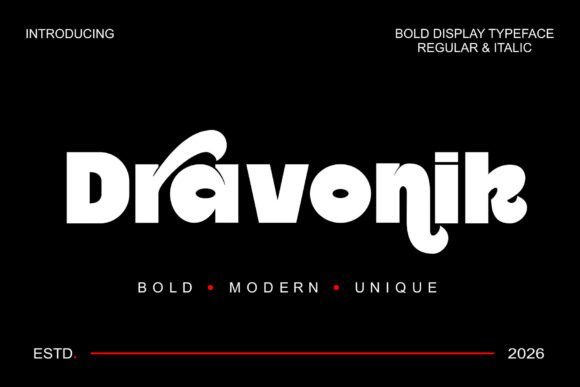
Unlocking Creativity with the Dravonix Font
Have you ever stared at a blank canvas, waiting for inspiration to strike? You’re not alone. As creatives, we’ve all been there – searching for that perfect spark to bring our ideas to life. For designers, typography is often the key to unlocking a project’s true potential. That’s why we’re excited to introduce the Dravonix Font, a modern, bold, and elegant typeface designed to elevate your designs and leave a lasting impression.
With the Dravonix Font, you’ll have the perfect tool to add instant impact to your logos, website headers, posters, and packaging designs. Its dynamic structure and powerful personality make it a versatile choice for any creative project. Whether you’re working on a fashion branding campaign or a cutting-edge tech visual, the Dravonix Font is sure to captivate your audience and set you apart from the crowd.
Dravonix Font Key Features
- Font Family: Dravonix Font comes in two font families, Dravonix Regular and Dravonix Bold.
- Unique Characteristics: Dravonix Font features a unique blend of modern and vintage elements, with distinctive letterforms and a touch of elegance, making it perfect for creative and professional projects.
Dravonix Font Review
Overall, I think the Dravonix font is a great addition to any designer’s toolkit. ✨ The unique blend of modern and futuristic elements gives it a really striking look that’s perfect for anything from tech startups to sci-fi novels. The font is highly legible, even at small sizes, and the subtle curves and angles add a touch of sophistication.
One of the things I love about Dravonix is its versatility. ✨ It comes in a range of weights and styles, from light and elegant to bold and dramatic. This makes it easy to use in a variety of contexts, from body text to headings and titles. Plus, the font is fully scalable, so it looks great on everything from tiny mobile screens to massive billboards.
However, there are a few limitations to consider. ⚠️ For one thing, the font can be a bit over-the-top at times – it’s not always the best choice for more subtle or understated designs. Additionally, the font’s bold weights can be a bit hard to read at very small sizes. And finally, the font’s unusual letterforms can make it tricky to use in certain contexts, such as in very long blocks of text.
- Unique and striking design ✨
- Highly legible, even at small sizes ✨
- Versatile and scalable ✨
- May be too bold or over-the-top ⚠️
- Can be hard to read at very small sizes ⚠️
- Unusual letterforms can be tricky to use ⚠️
Tips for Getting the Most Out of Dravonix Font
To get the most out of Dravonix Font, try using it for:
– Creative headings and titles.
– Designing futuristic and tech-inspired graphics.
– Creating a unique and eye-catching brand identity.
– Pairing it with bold and geometric fonts for contrast.
Dravonix Font is commonly used for:
– Infographics and data visualization.
– Science fiction and technology-themed designs.
– Branding and marketing materials.
– Creating a futuristic and high-tech atmosphere.